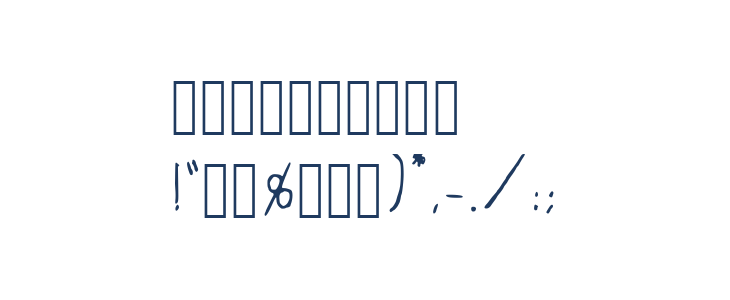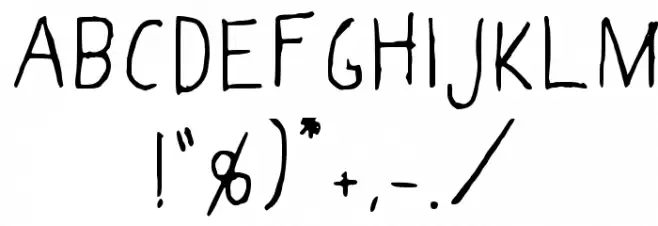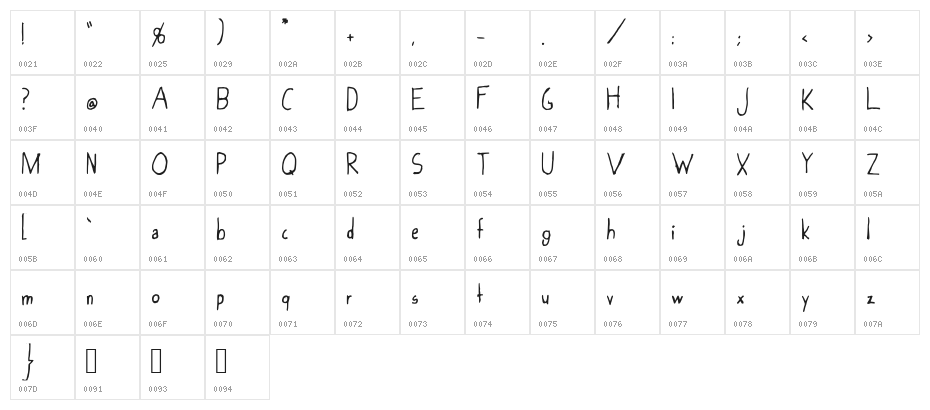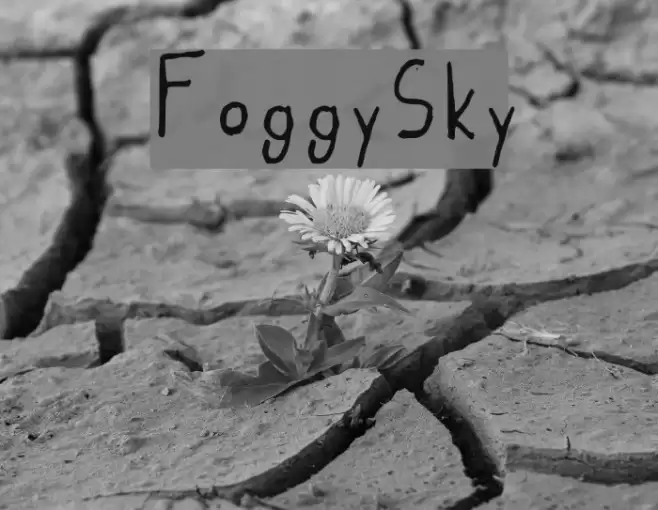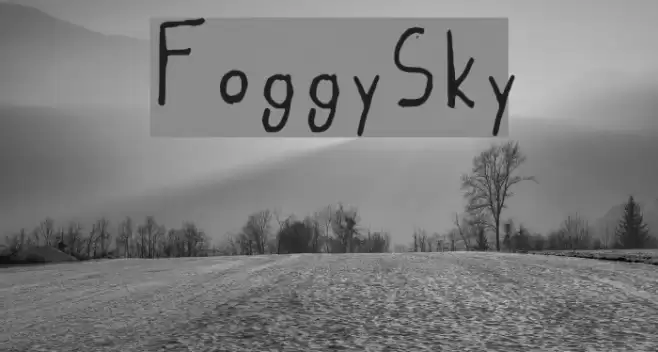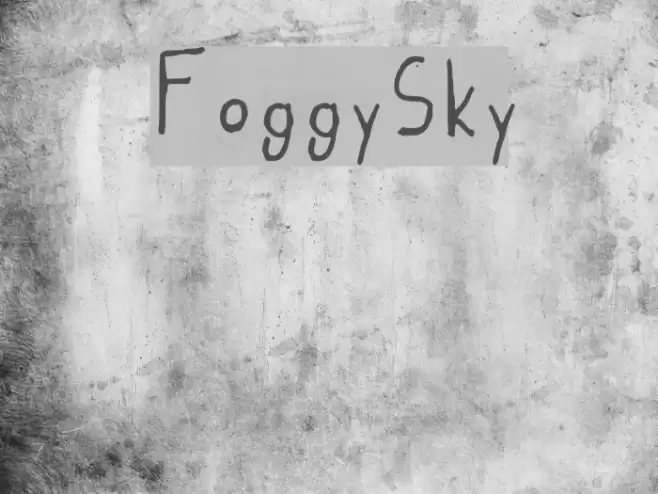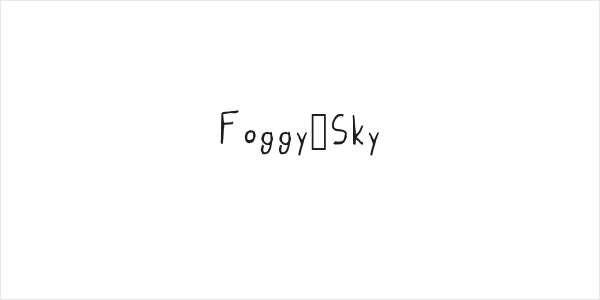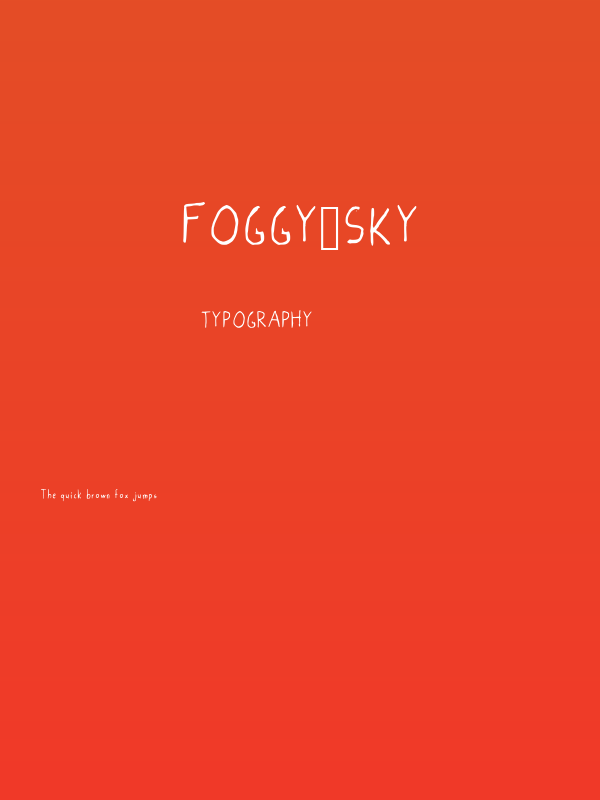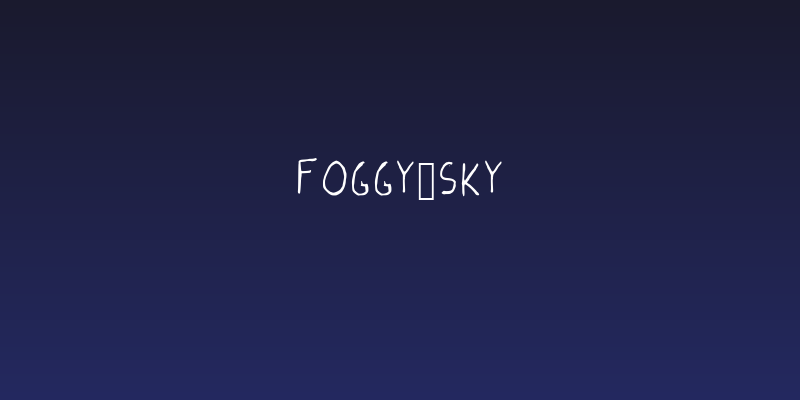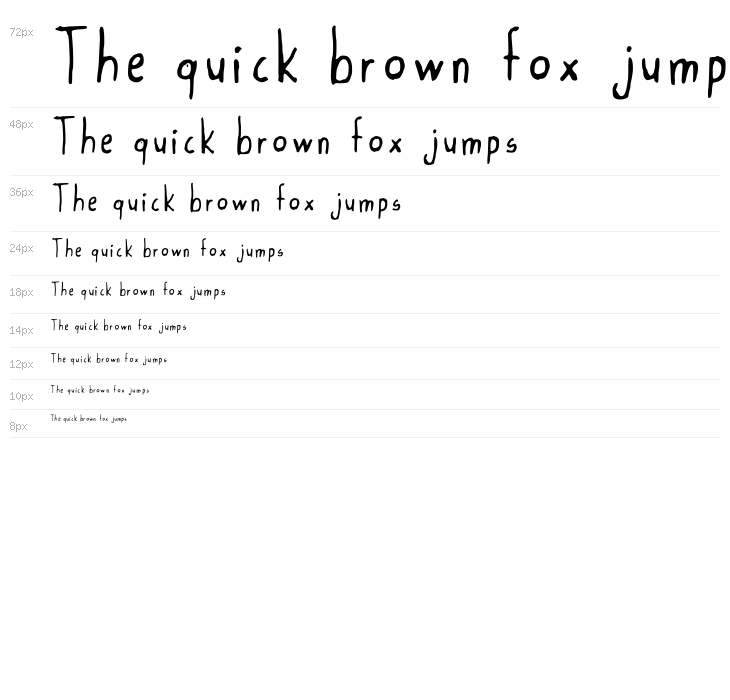
Foggy_Sky Font
Foggy_Sky Description
This font features a playful and informal handwritten style, characterized by irregular strokes and a casual appearance. The letters have a slightly uneven baseline, adding to the whimsical and organic feel. The uppercase and lowercase letters maintain a consistent style, with rounded edges and a slight tilt, giving the impression of being hand-drawn. The numerals and special characters follow the same aesthetic, ensuring a cohesive look across all glyphs. This font exudes a friendly and approachable vibe, making it suitable for projects that require a personal touch.
| Use Case | Headlines, Informal text, Personal projects |
| Proposed Projects | Ideal for greeting cards, children's books, personal blogs, and informal branding projects. |